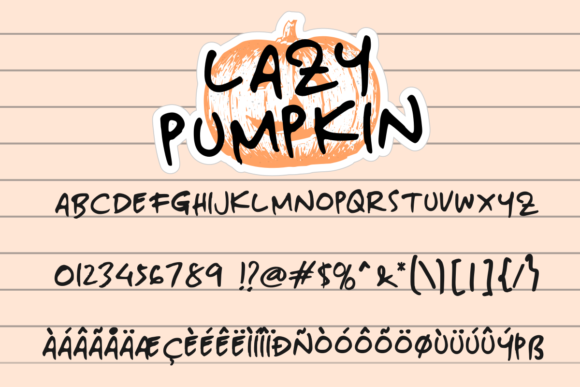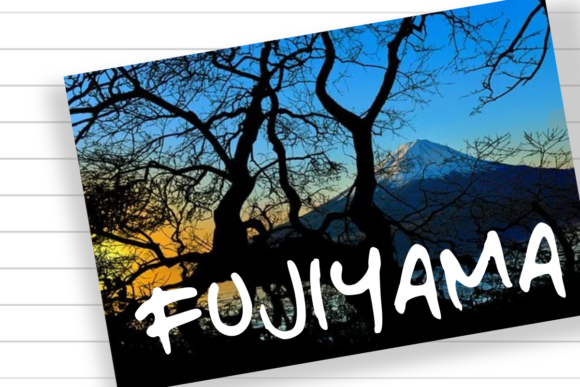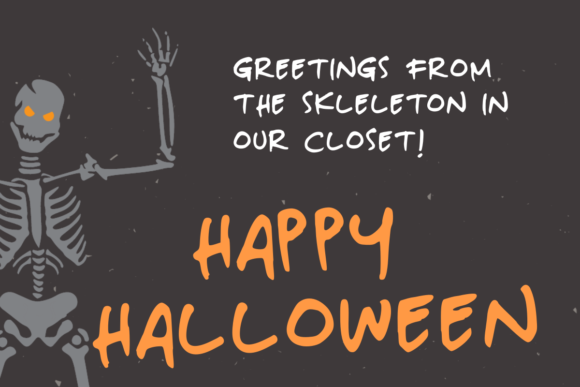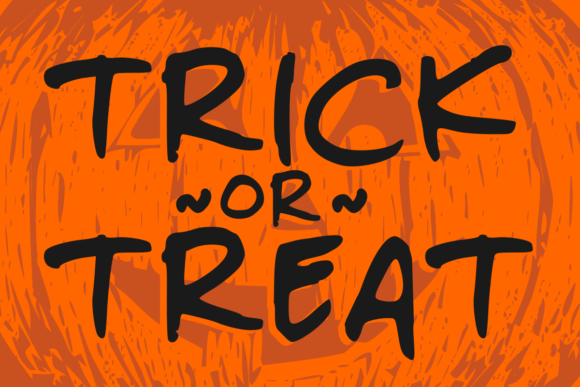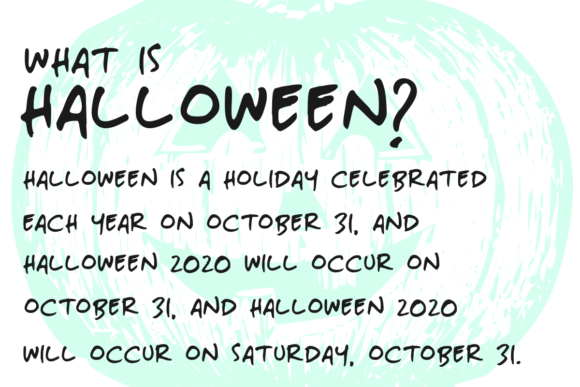
Introduction to Lazy Pumpkin Font
Lazy Pumpkin is a fun and relaxed display font.
Simple and neat, this font is ideal for each of your Halloween themed ideas .
Key Features of Lazy Pumpkin Font
Why Choose Lazy Pumpkin Font?
Lazy Pumpkin Font offers exceptional quality and versatility, making it a valuable addition to your design toolkit. Whether you’re creating for personal projects or commercial use, Lazy Pumpkin Font delivers professional results.